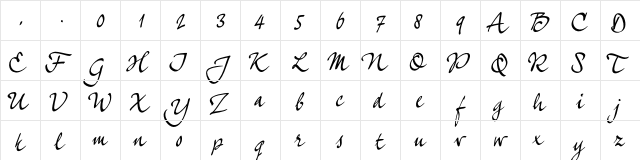
Quarantinus_T Regular
| Foundry | JJW van der Ham / JOEBOB graphics |
| Designer | JJW van der Ham |
Design Context for Quarantinus_T Typeface
Quarantinus_T is a composed and adaptable typeface that performs quietly and consistently across a wide range of design contexts.